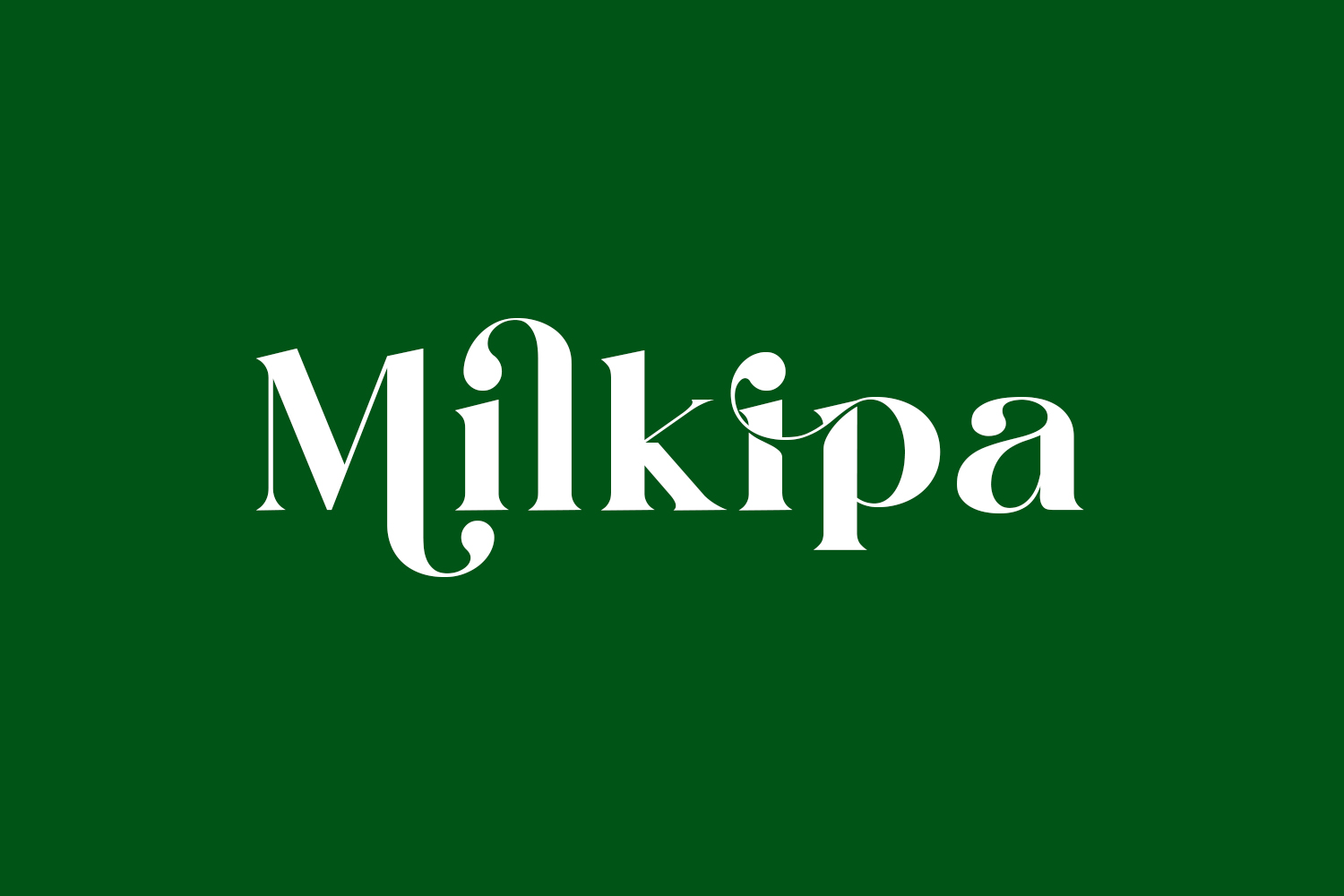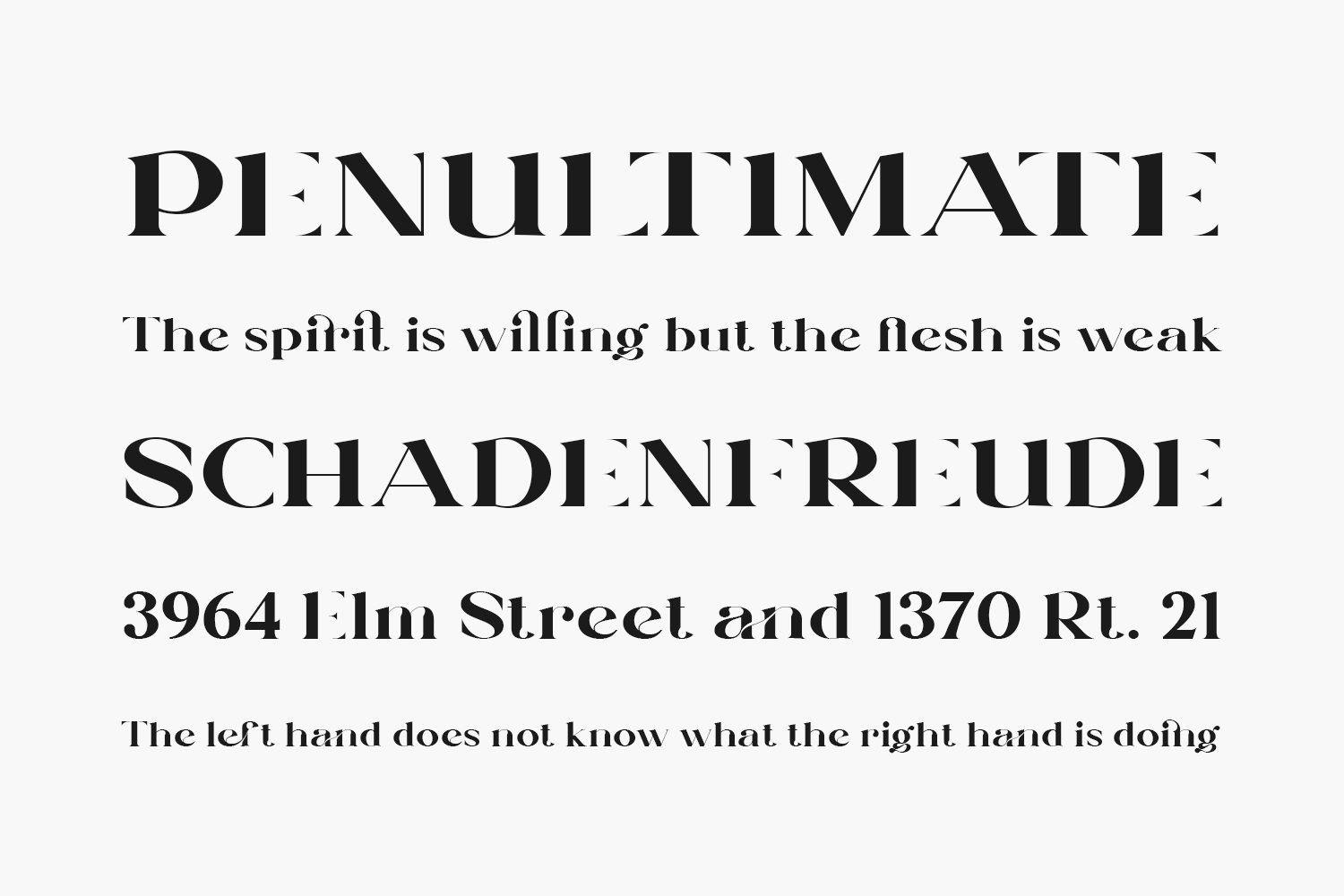
Milkipa Free Font is a superb serif font that looks modern and exquisite. It is perfect for designing templates, brochures, videos, advertising branding, logos, and more. Milkipa Free Font is free for personal use only. Please purchase the full version for commercial use.
Designed by Graphicxell